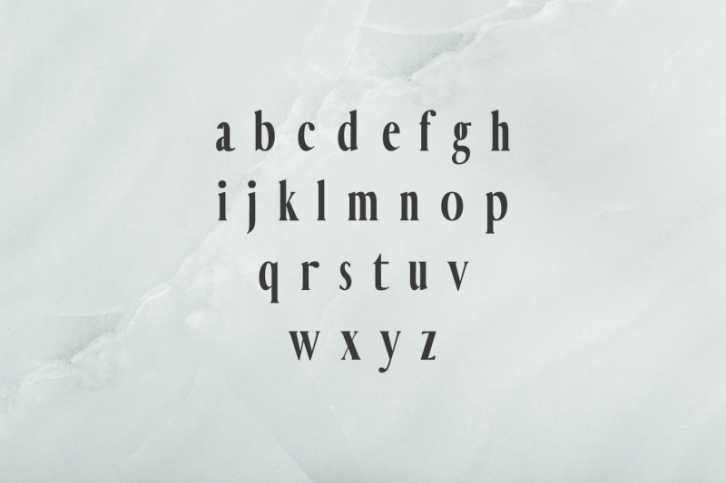
Hadwin A Serif Font Family is a clean 4 font family pack, It features unique and modern serif look and feel. Perfect for gorgeous logos, titles, web layouts and branding. It looks gorgeous in all caps with a wide-set spacing if you want to try a classy look, or beautiful on its own in capital and lowercase letters for something completely timeless.
Hadwin Font Features:
- Uppercase Multilingual Letters
- Lowercase Multilingual Letters
- Numbers & Punctuation
- Alternative